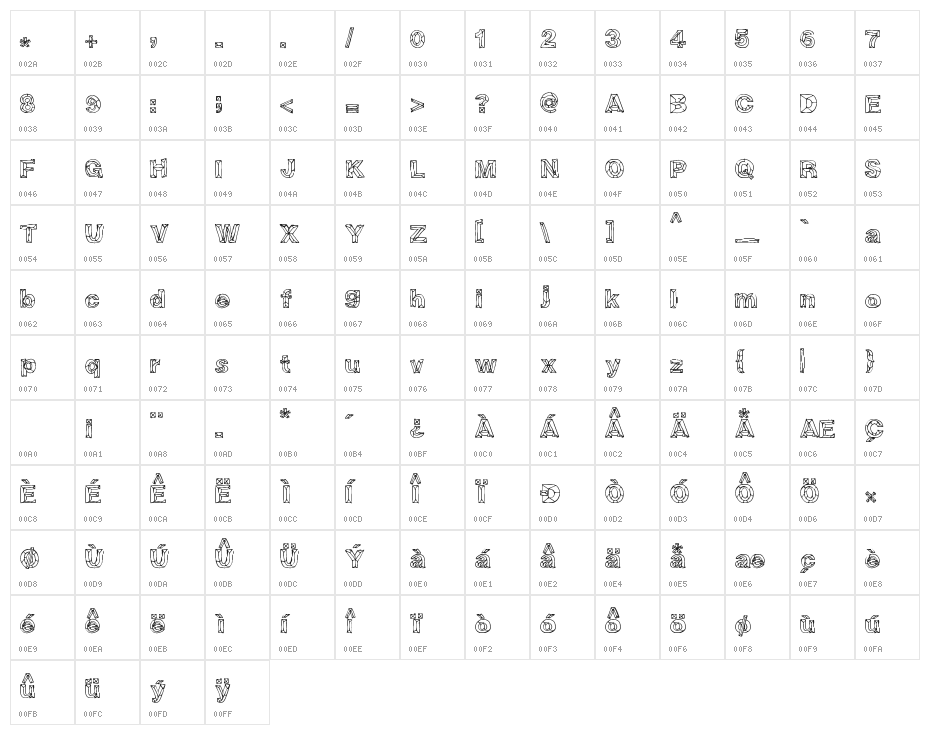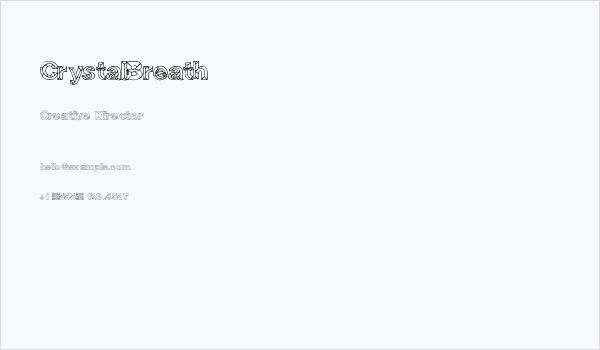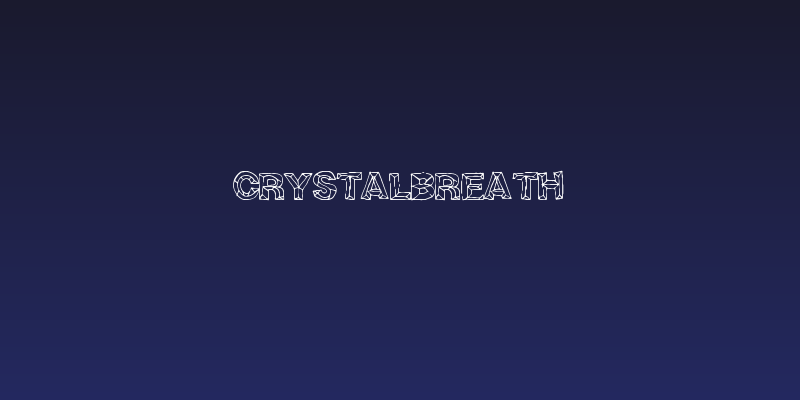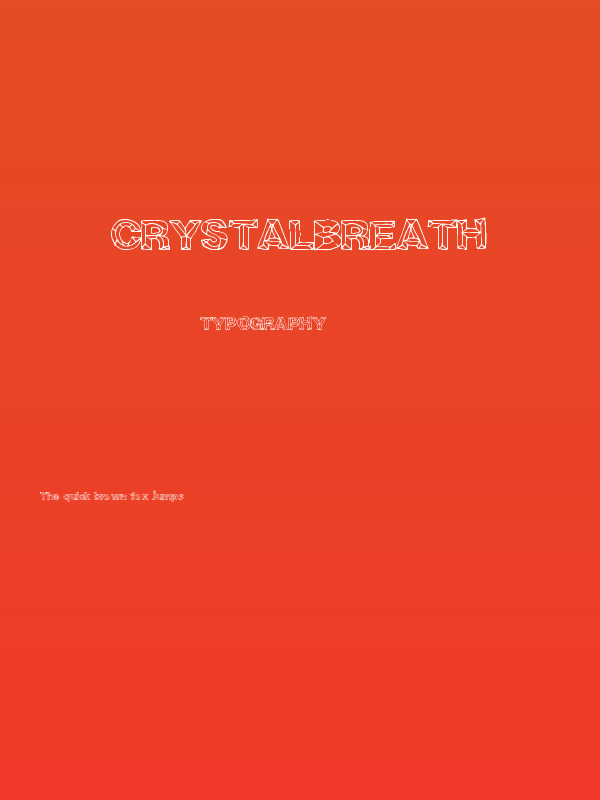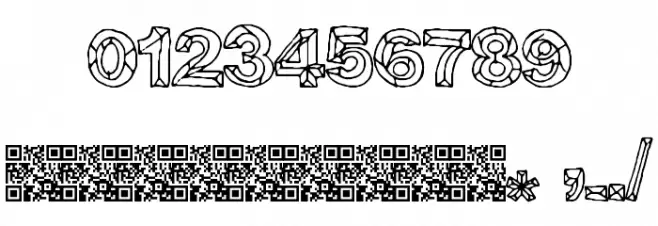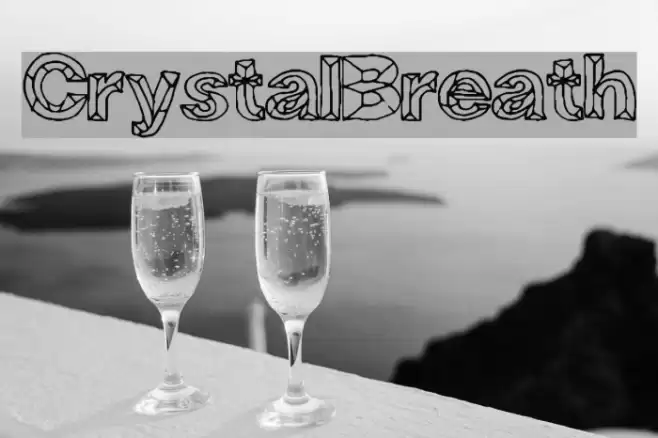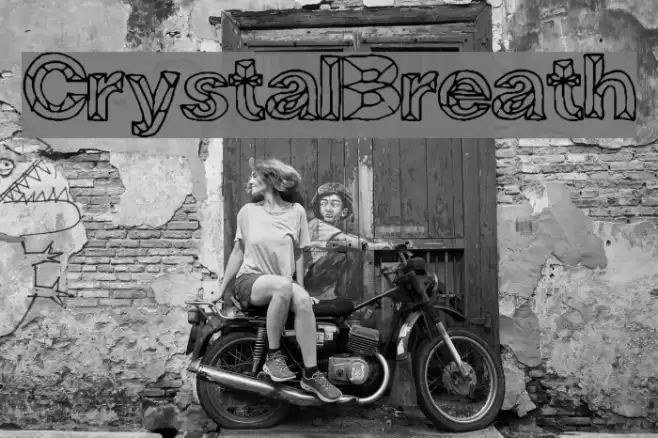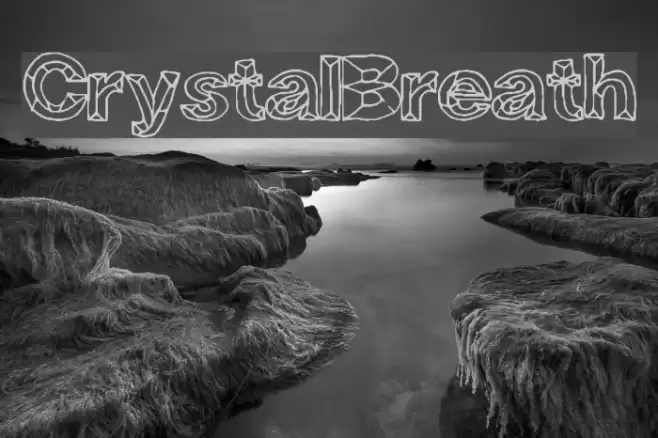
CrystalBreath Font
CrystalBreath Description
This font features a unique, geometric design with a crystal-like appearance. Each character is composed of angular, faceted shapes that give it a three-dimensional, textured look. The bold outlines and intricate internal patterns create a striking visual effect, making it ideal for attention-grabbing designs. The uppercase and lowercase letters maintain consistency in style, while the numbers and special characters seamlessly integrate into the overall aesthetic. This font's distinct style makes it suitable for creative projects that require a modern and edgy touch.
| Proposed Projects | Ideal for branding, posters, album covers, and digital artwork that require a modern, edgy aesthetic. |